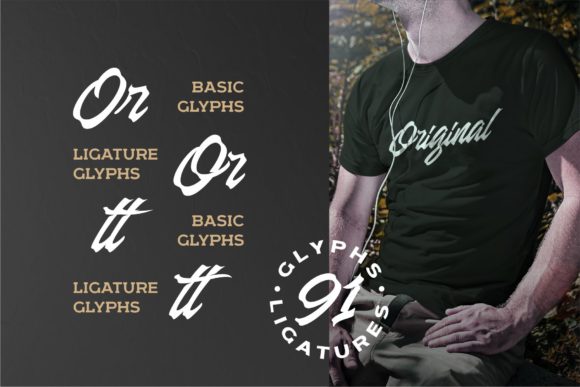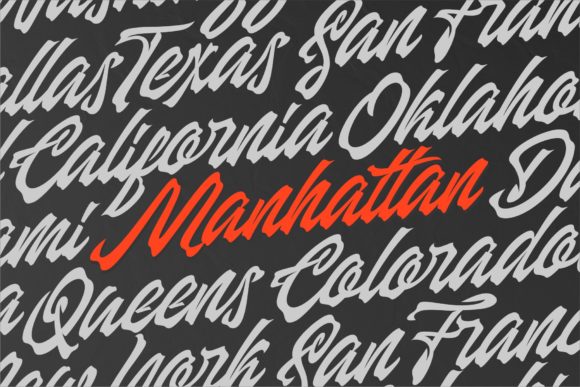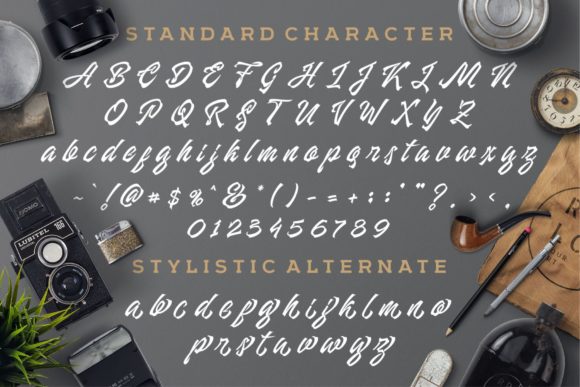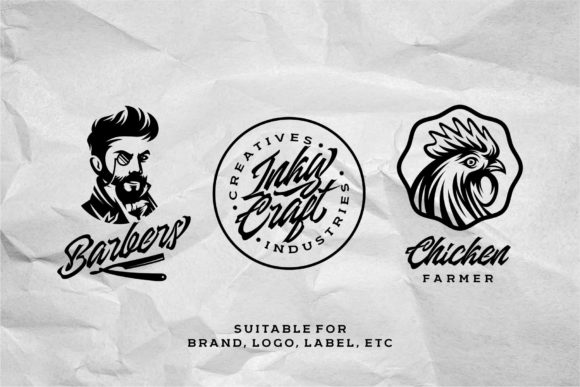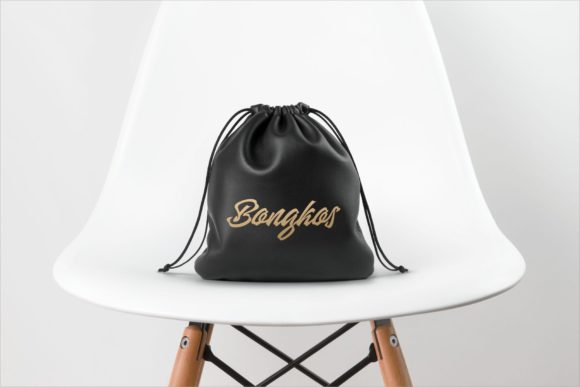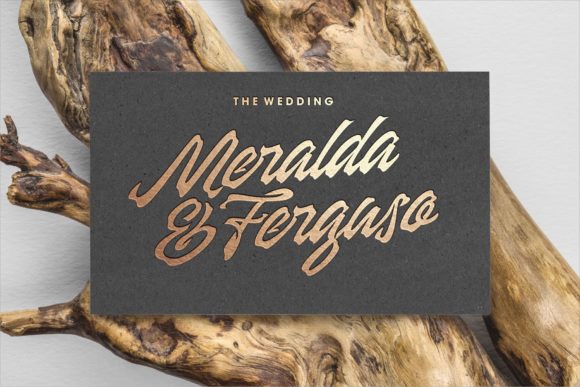
Introduction to Manhattan Brush Font
Manhattan Brush is a bold modern script font with a lovely flowing style.
Get motivated by its contemporary charm .
Key Features of Manhattan Brush Font
Why Choose Manhattan Brush Font?
Manhattan Brush Font offers exceptional quality and versatility, making it a valuable addition to your design toolkit. Whether you’re creating for personal projects or commercial use, Manhattan Brush Font delivers professional results.